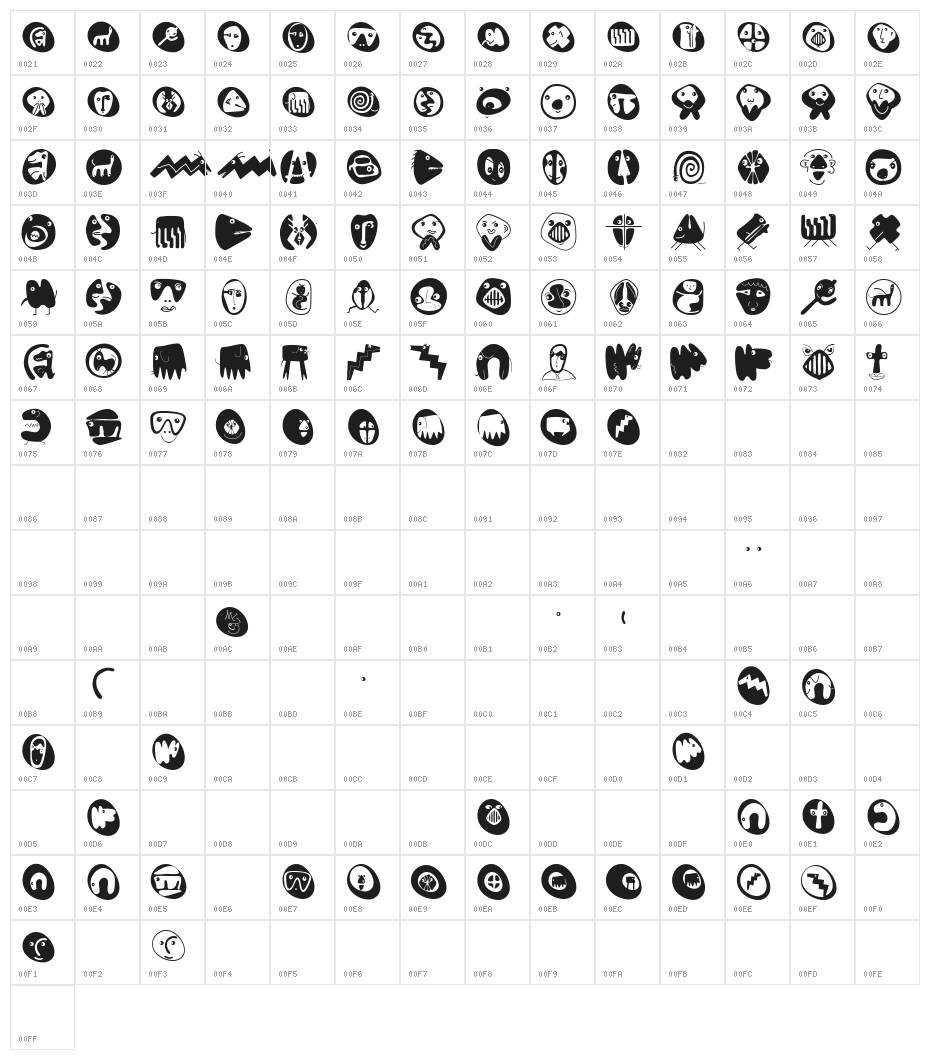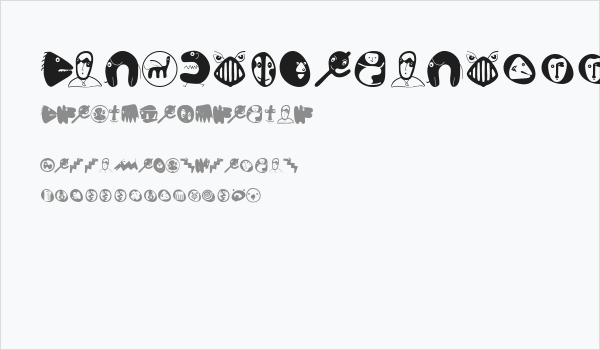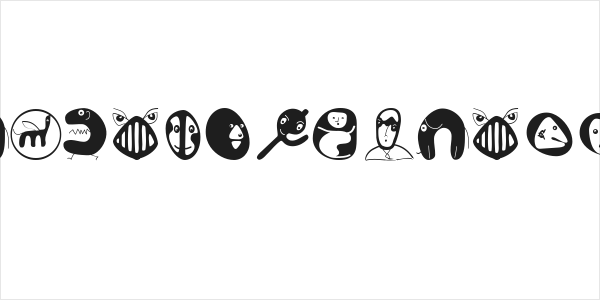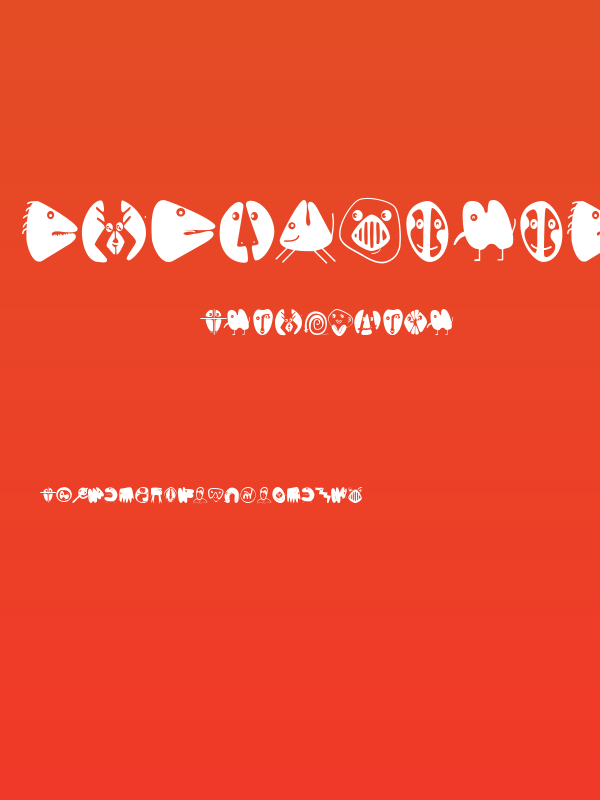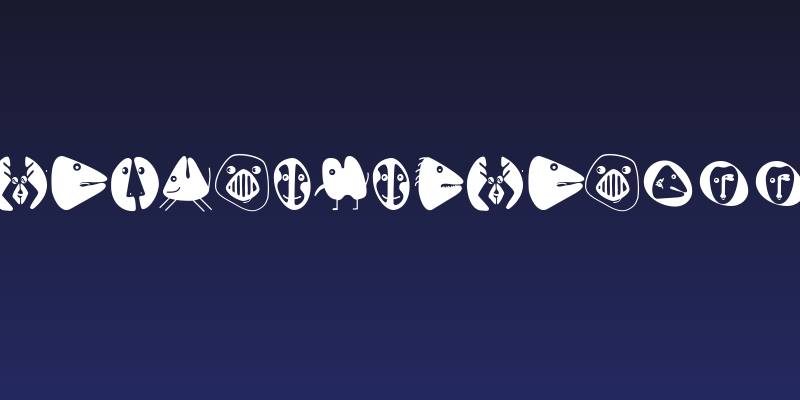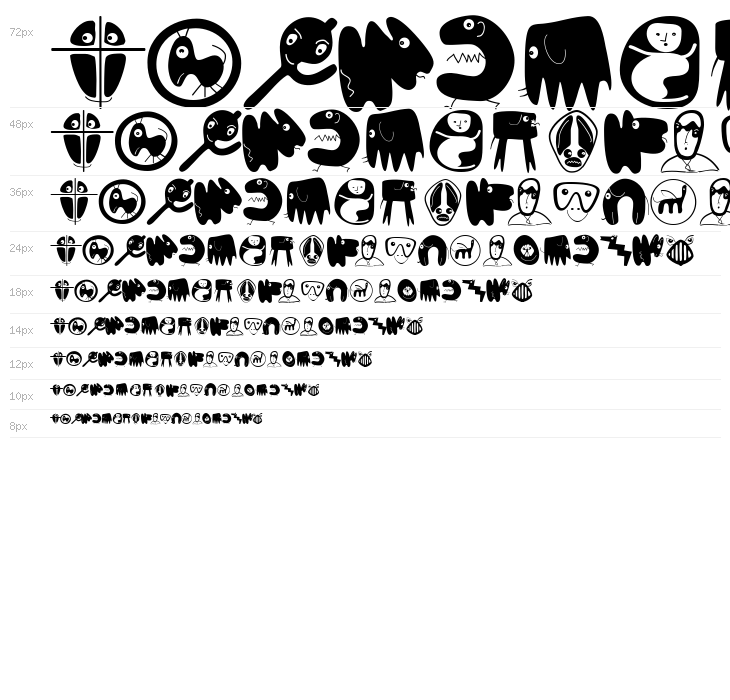
ConfusEyecons2005 Font
ConfusEyecons2005 Description
This set of symbols is a collection of abstract, playful icons rather than a traditional font. Each character is uniquely designed with whimsical and imaginative elements, often resembling faces or creatures. The style is highly decorative and artistic, with a strong emphasis on creativity and visual storytelling. The characters are bold and filled with intricate details, making them stand out individually. This collection is more suited for artistic projects where a sense of fun and creativity is desired, rather than for standard text representation.
| Use Case | Logos, Artistic projects, Creative branding |
| Proposed Projects | Ideal for creative projects such as children's books, playful branding, artistic posters, or any design that benefits from a whimsical and imaginative touch. |